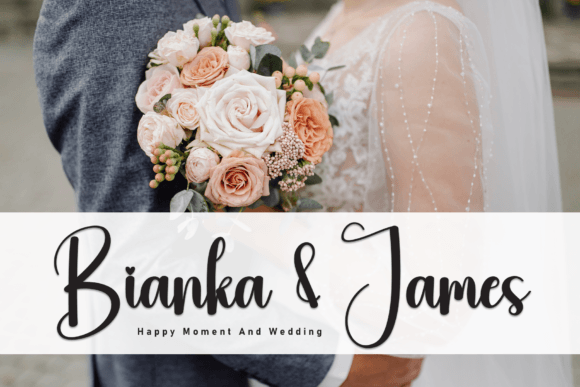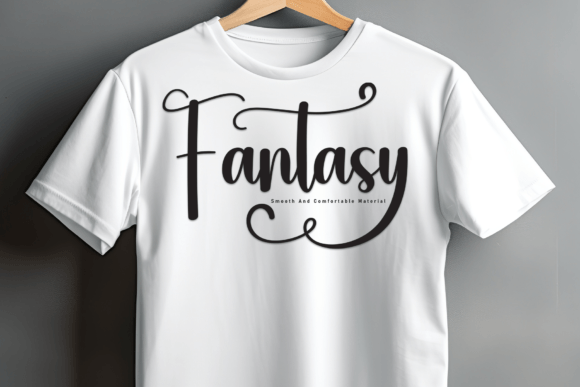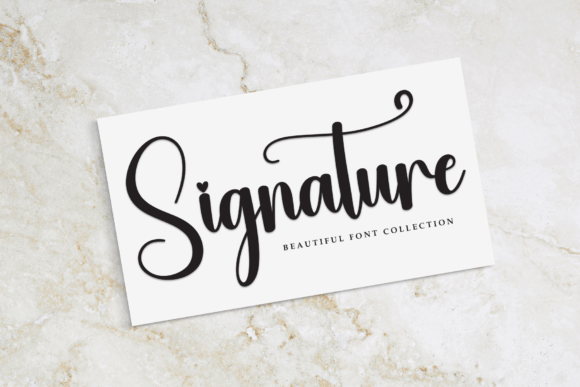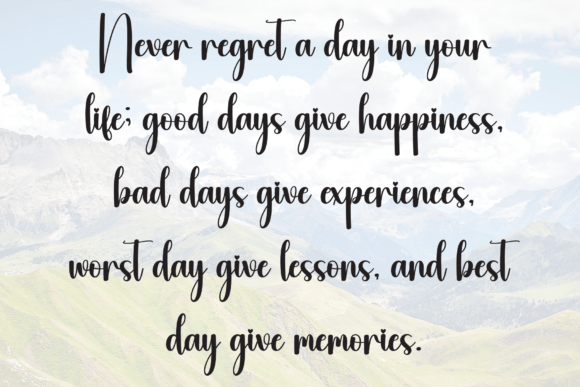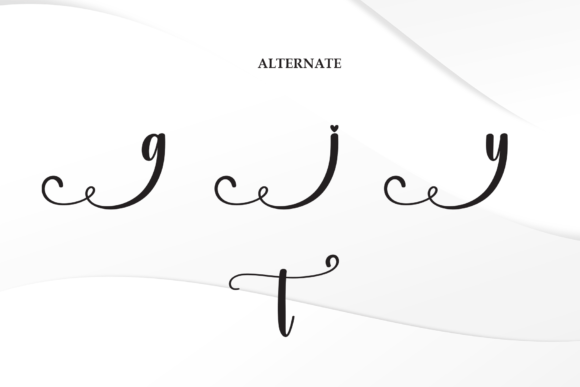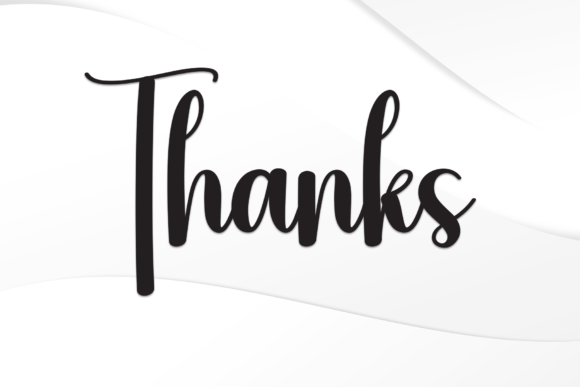
Introduction to Shortly Font
As a designer, have you ever been stuck on the perfect font for a creative project, only to be overwhelmed by the endless options available? I know I have. But what if I told you there’s a font that can instantly elevate your design and leave a lasting impression on your audience? Enter Shortly Font, a stylish and elegant script font that’s about to become your go-to design resource.
Whether you’re crafting a wedding invitation, a heartfelt thank you card, or a logo that screams ‘handmade’, Shortly Font is the perfect companion for your creative endeavors. Its versatility and high quality make it an ideal choice for designers looking to add a touch of personality to their work.
Key Features of Shortly Font
- High-quality design resource suitable for creative projects, offering a clean and modern aesthetic.
- Single-layer design, making it easy to edit and customize.
- High-resolution design, suitable for print or digital use, with a resolution of 300 DPI.
- Designed to be highly legible, even at small font sizes, making it perfect for a variety of creative projects.
Honest Review: Shortly Font
I recently had the chance to work with Shortly Font for a creative project and I must say, it was a mixed bag. On the one hand, I loved the clean and modern aesthetic of this design resource. ✨ The high-quality font is perfect for anyone looking to add a touch of sophistication to their design.
One of the standout features of Shortly Font is its versatility. It can be used for a variety of projects, from logos and branding to web design and print materials. Additionally, the free download option makes it accessible to designers of all levels.
Here are some pros and cons I experienced with Shortly Font:
- ✨ Versatile and can be used for a variety of projects
- ⚠️ Limited character set (may not be suitable for longer text blocks)
- ⚠️ May not work well with transparent background (depending on design requirements)
Overall, I would say that Shortly Font is a solid design resource that is perfect for smaller projects or as a supplement to other fonts. While it may have some limitations, it is definitely worth considering for your next creative project.
Shortly Font
Design Resource Guide
The Shortly Font is a high-quality design resource ideal for creative projects. It features a transparent background, making it perfect for overlaying on images or videos.
Tips for Getting the Most Out of Shortly Font
To get the most out of the Shortly Font, experiment with different font sizes, colors, and styles to create visually appealing designs. You can also combine the Shortly Font with other design elements to create a unique look.
The Shortly Font is ideal for creative projects such as graphic design, digital art, and visual storytelling. It’s also perfect for social media graphics, blog posts, and marketing materials.
Alternatives to Shortly Font
Montserrat is a popular sans-serif font that is perfect for creative projects requiring a clean and modern design. It features a high-quality, transparent background and is available for free download. When to use: Montserrat is ideal for designs that require a strong, urban feel. Compared to Shortly Font, Montserrat has a more geometric and modern appearance.
Open Sans is a clean and versatile font that is suitable for a wide range of design projects. It features a high-quality design and is available for free download. When to use: Open Sans is ideal for designs that require a friendly and approachable tone. Compared to Shortly Font, Open Sans has a more rounded and friendly appearance.
Lato is a modern sans-serif font that is perfect for creative projects requiring a high-quality design resource. It features a transparent background and is available for free download. When to use: Lato is ideal for designs that require a clean and elegant feel. Compared to Shortly Font, Lato has a more refined and sophisticated appearance.
Is Shortly Font suitable for use on a transparent background?
Yes, Shortly Font has a transparent background, making it ideal for use on dark or gradient backgrounds. The font’s design is carefully crafted to ensure that the text remains legible and visually appealing, even when placed on a transparent background.